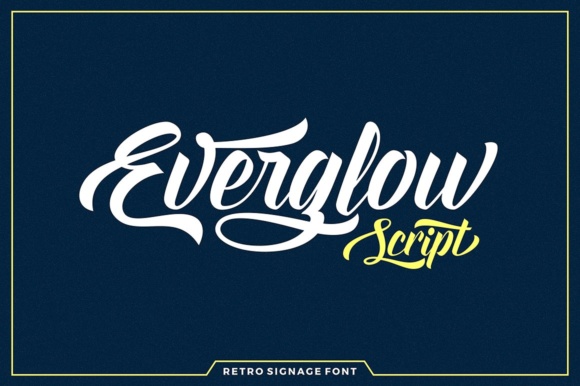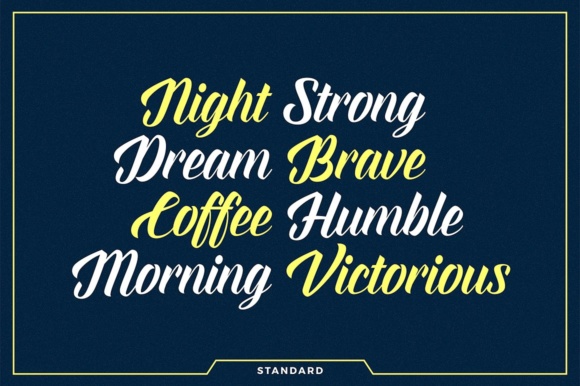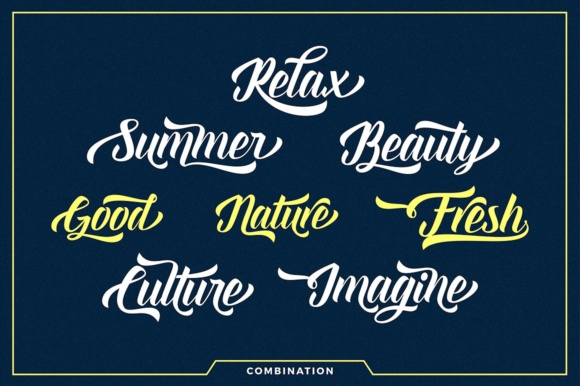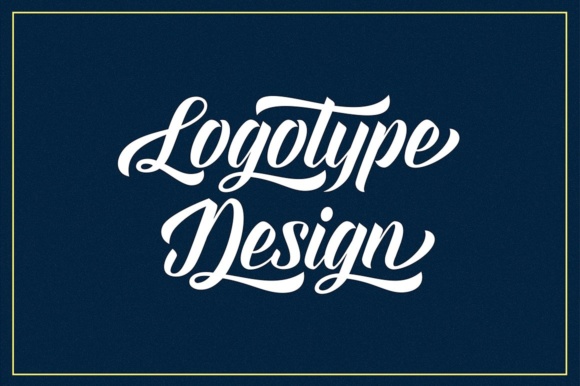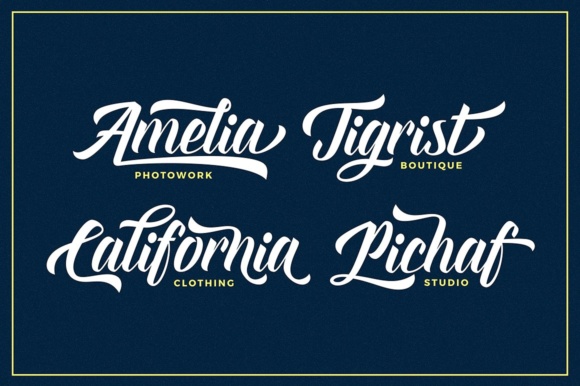
About Everglow Script Font
Everglow Script is a retro, signage font. It’s bold & clean, and features many variations of each character.
The Everglow Script can be used to create many different typographical layouts. Making it a versatile font that can be used in many different projects.